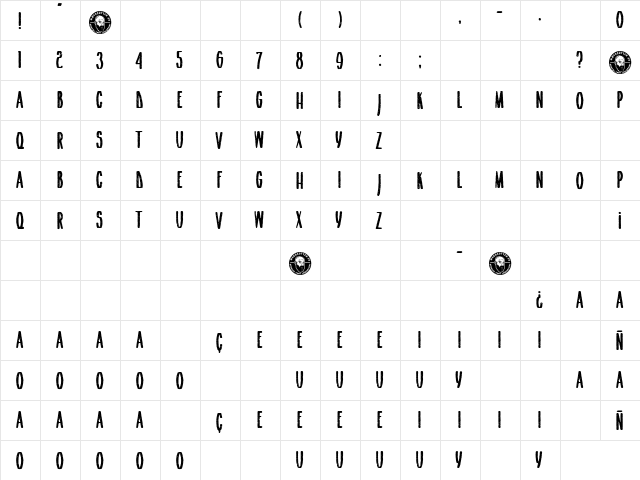
The North Hell Regular
Design Context for The North Hell Typeface
The North Hell is a composed and adaptable typeface that performs quietly and consistently across a wide range of design contexts.